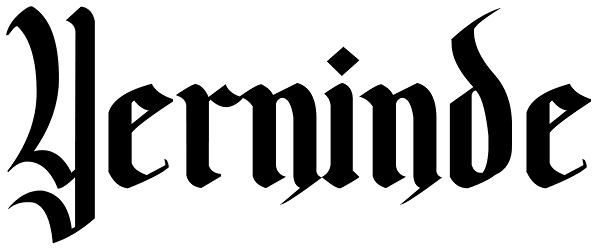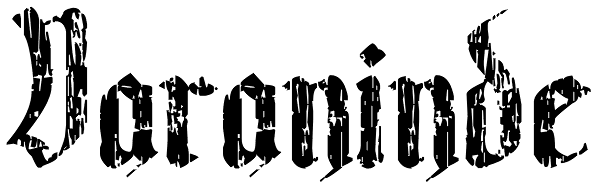
Varaninde
Varaninde is a handwritten, German medieval family. Its narrow characters and spiky shapes makes it look a bit dark and horroristic. The basic, clean font is Yerninde and Varaninde is the grunge version of that. Each has the same glyph set as well...